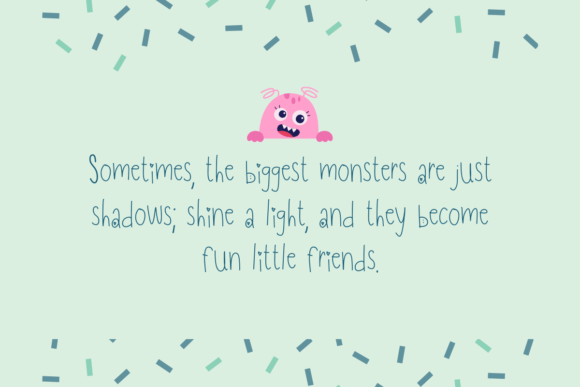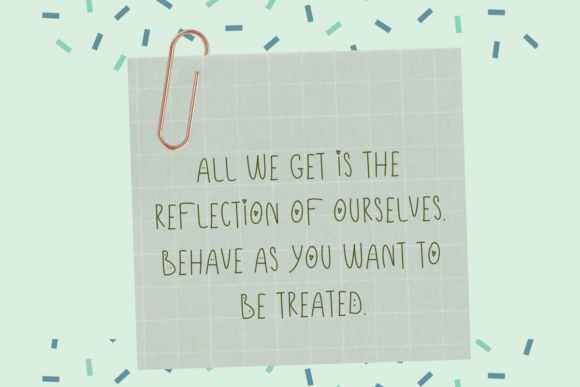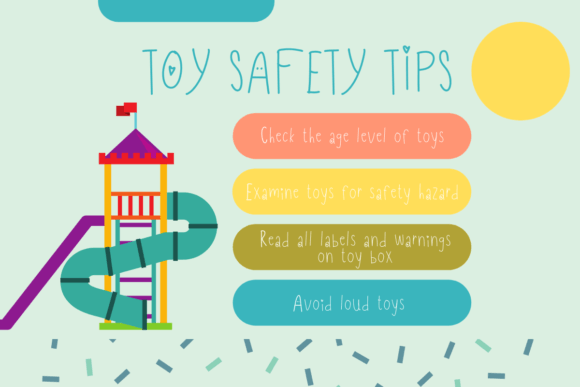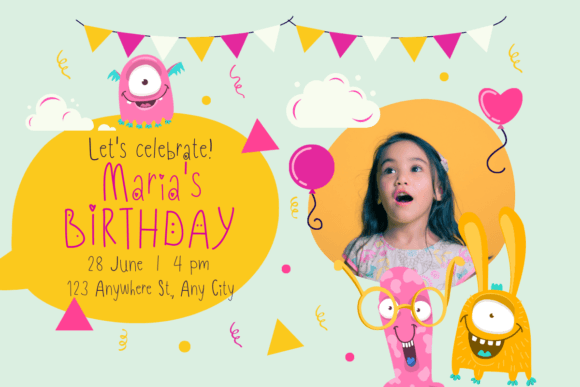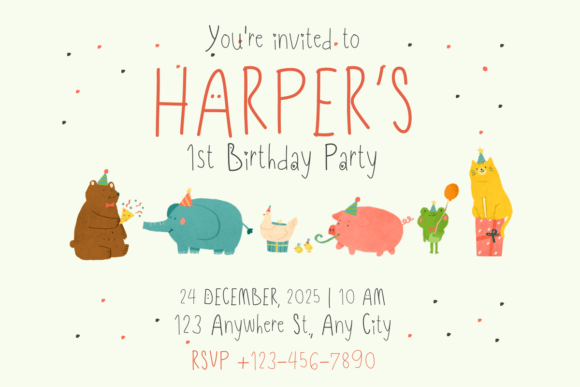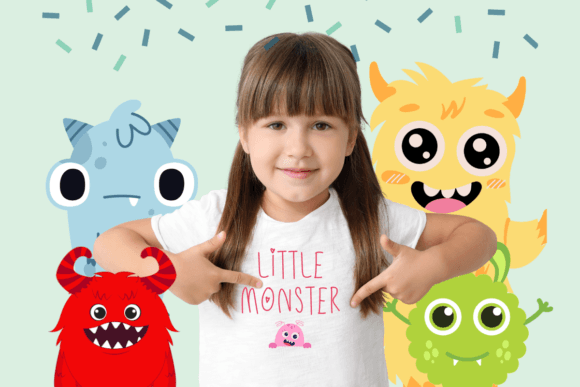
Introduction to Monster Art Font
As you sit at your desk, surrounded by scattered papers and half-finished projects, you finally feel the spark of creativity strike. Your mind is racing with ideas, and you know exactly what you need to bring them to life: a font that’s as playful as you are. That’s where Monster Art Font comes in – a delightful, high-quality handwritten font that’s perfect for digital note-taking and so much more.
Whether you’re a seasoned designer or a creative hobbyist, Monster Art Font is a valuable addition to your design resource arsenal. Its versatility makes it ideal for a wide range of projects, from Procreate designs and blog posts to logos, branding, and digital planners. And the best part? You can download it for free, with a transparent background that’s perfect for any creative project.
Key Features of Monster Art Font
- High-quality, unique illustrations in a single font file, perfect for creative projects
- Includes a variety of monster characters with transparent backgrounds for easy customization
- Each monster character is designed with high resolution (300 DPI) for crisp and clear display
- Perfect for designers, artists, and writers looking for a unique and creative way to add personality to their work
- Can be used in various design projects, including books, magazines, advertisements, and more
Honest Review: Monster Art Font
I recently came across the Monster Art Font, a design resource that caught my attention with its high quality and unique style. As a designer, I’m always on the lookout for new and exciting fonts to add to my collection.
- Unique and quirky design style that’s perfect for creative projects
- High-quality images with a transparent background for easy use in designs
- Only comes in a single style, which may limit its versatility
- Not suitable for corporate or formal designs due to its playful nature
Overall, I’m impressed with the Monster Art Font. It’s a great addition to any designer’s toolkit, especially for creative projects that require a unique and eye-catching font. While it may have some limitations, its high quality and free download make it a valuable resource for designers of all levels.
Tips for Getting the Most Out of Monster Art Font
Use a transparent background to create a seamless design. Experiment with different font sizes and colors to create a unique look. Combine the font with other design elements, such as shapes and graphics, to create a high quality design.
Monster Art Font is ideal for creative projects, such as graphic design, digital art, and typography. It’s also suitable for use in logos, branding, and marketing materials. Use the font to create a unique and eye-catching design that stands out from the crowd.